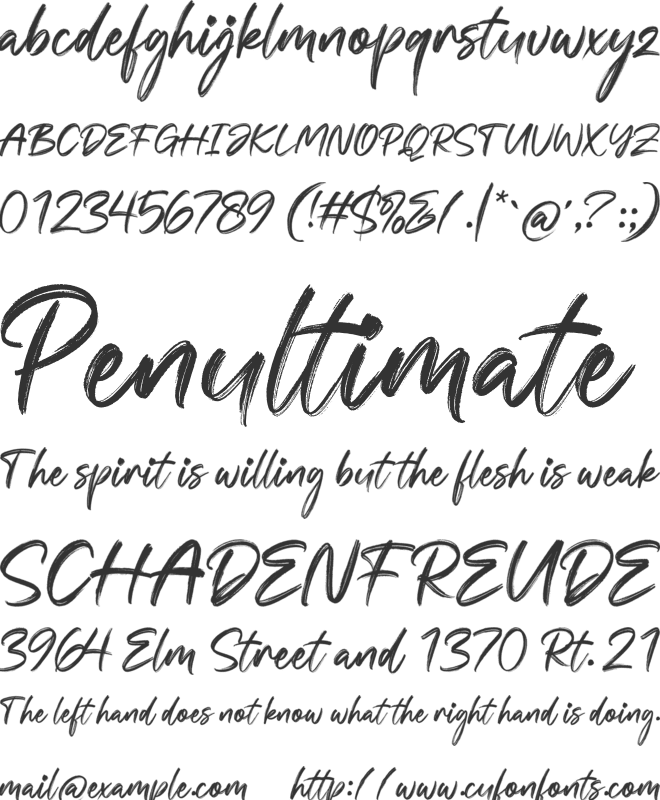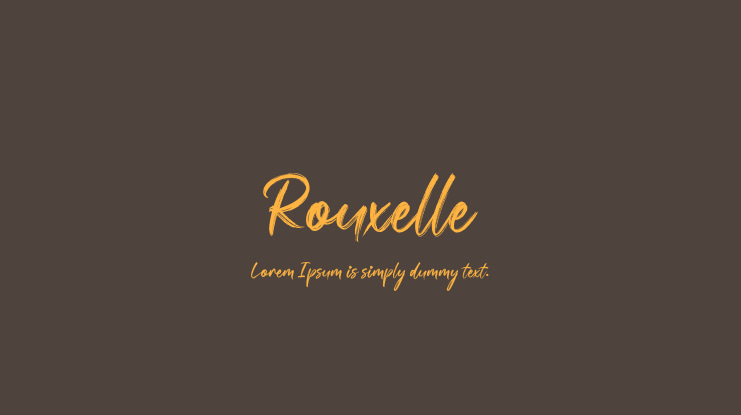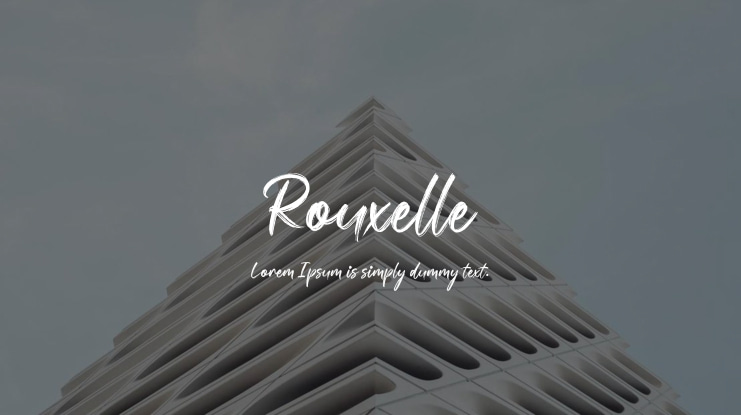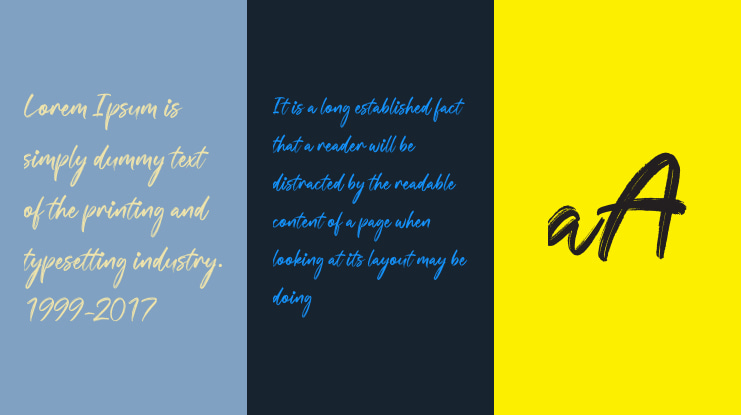
Rouxelle Font
✨ Rouxelle – A Bold & Expressive Brush Script ✨
Unleash the raw energy of Rouxelle, a modern brush script crafted for those who dare to stand out. With its dynamic strokes and effortless flow, Rouxelle embodies the perfect blend of boldness, creativity, and authenticity, making it an exceptional choice for branding, merchandise, and social media designs.
Bold & Expressive – Rouxelle’s powerful brush strokes bring a striking, hand-painted feel, adding energy and confidence to every word.
Edgy & Modern – Designed for statement-making projects, this script is perfect for logos, apparel, sports branding, and street-style designs.
Versatile & Impactful – Whether it’s for poster headlines, packaging, or social media content, Rouxelle delivers a high-energy aesthetic that demands attention.
Step into the world of bold creativity with Rouxelle—where artistry meets fearless expression. Ready to make your mark?
160 ligatures and alternate letters
Numerals & Punctuation